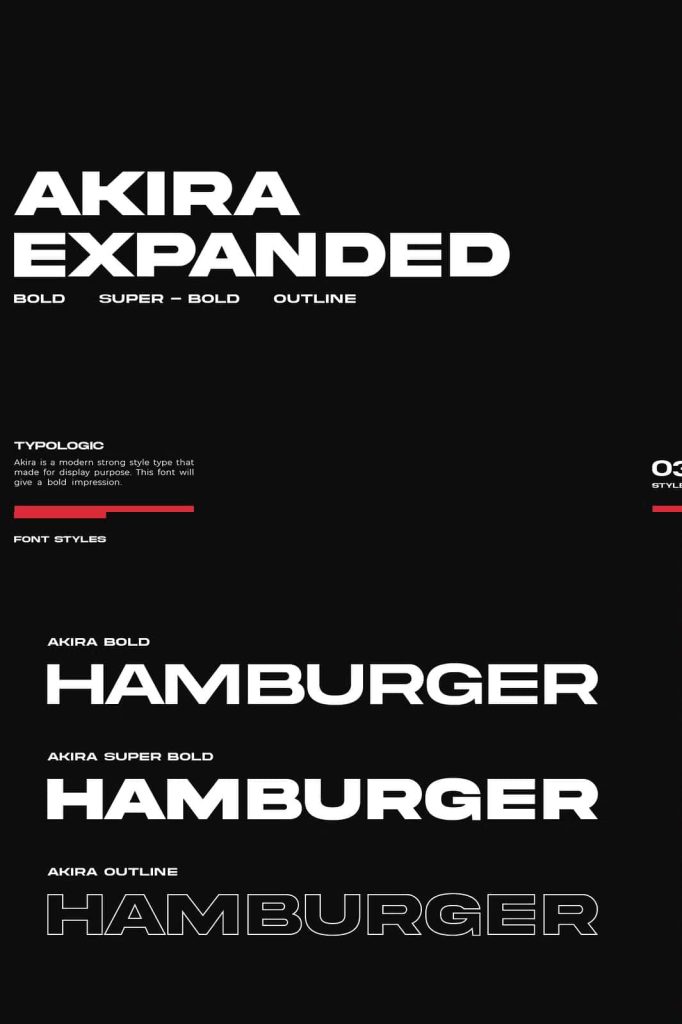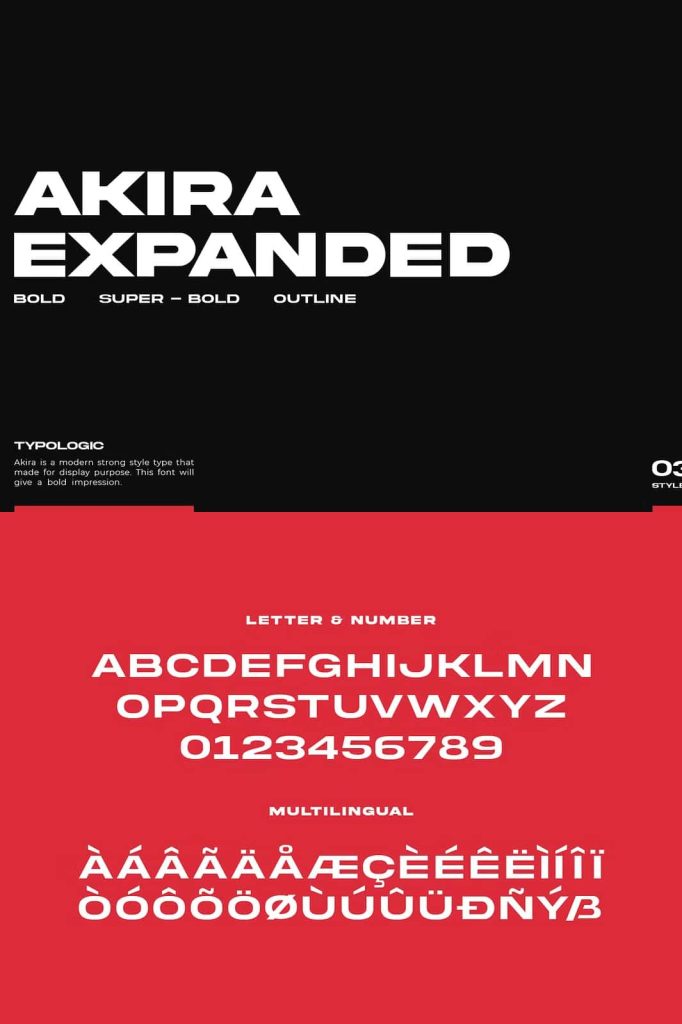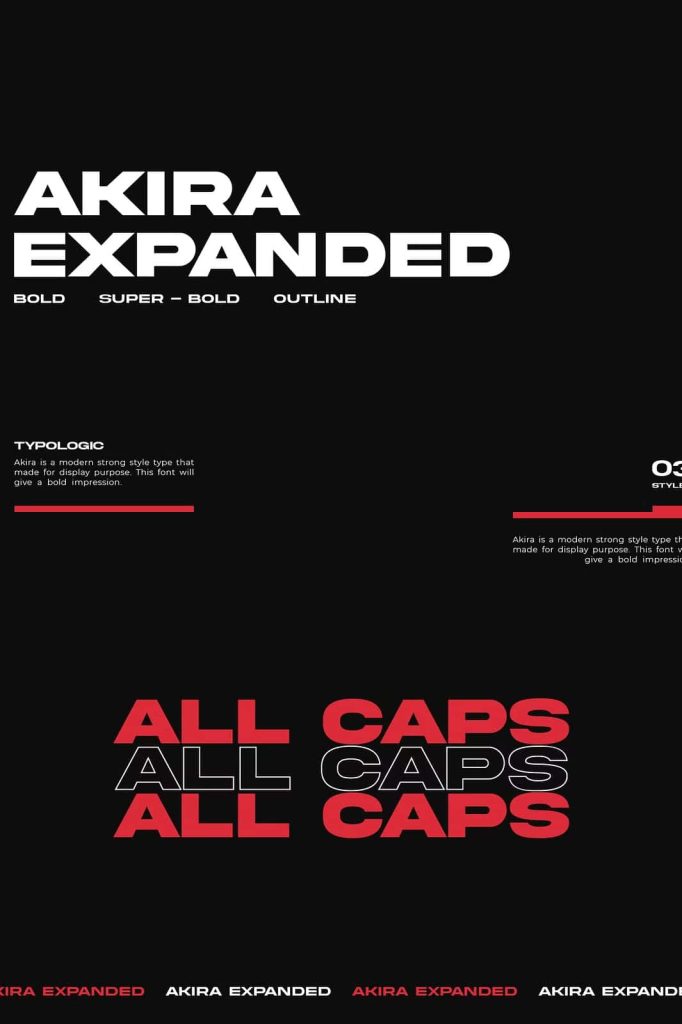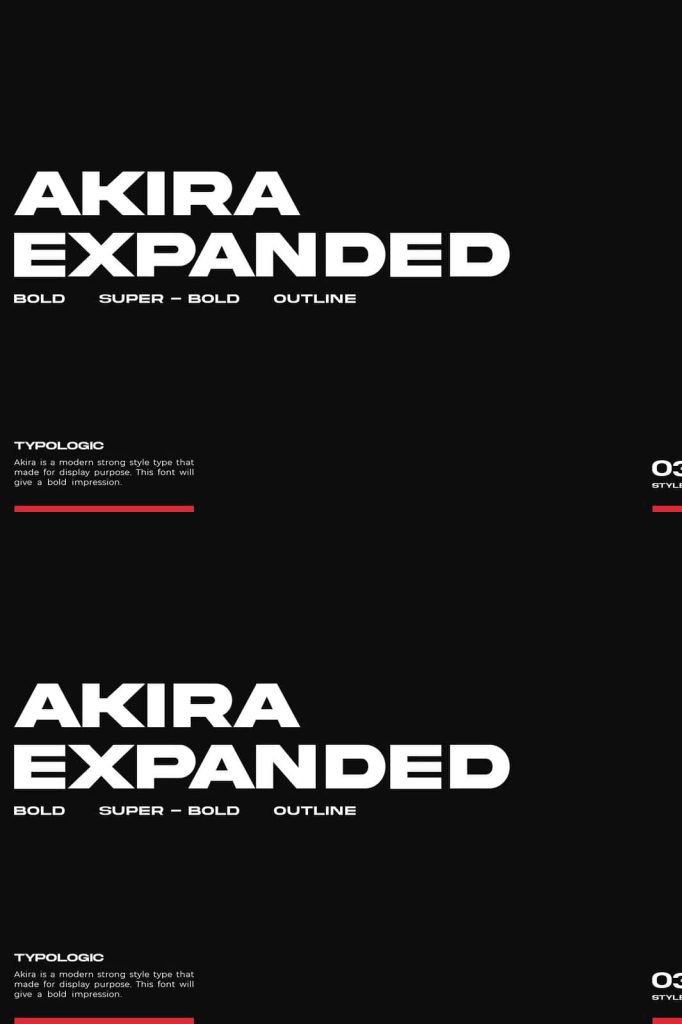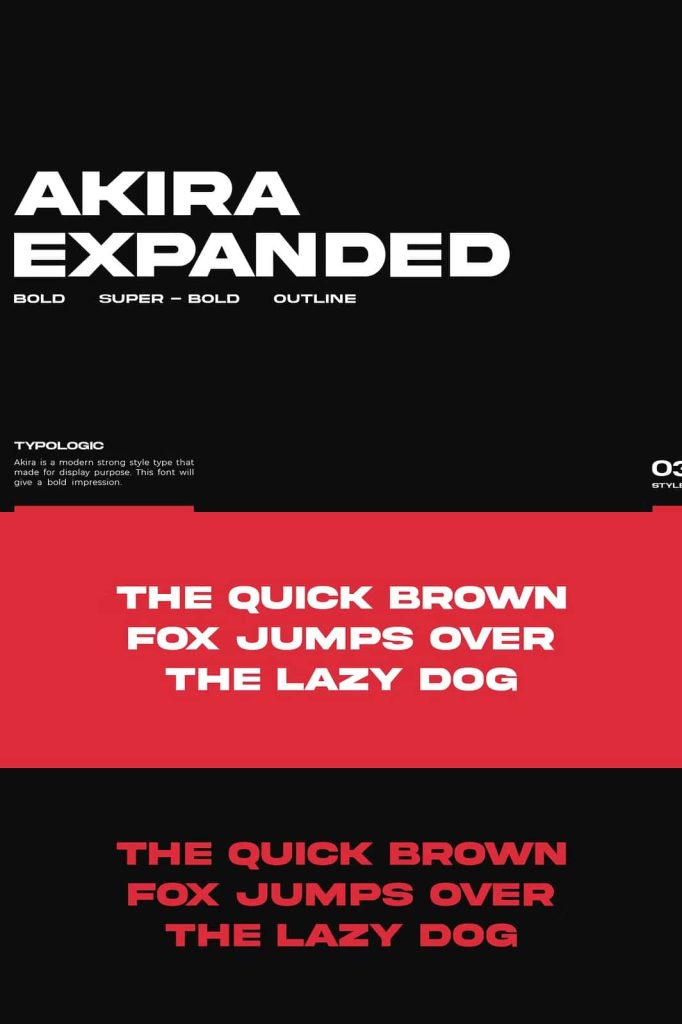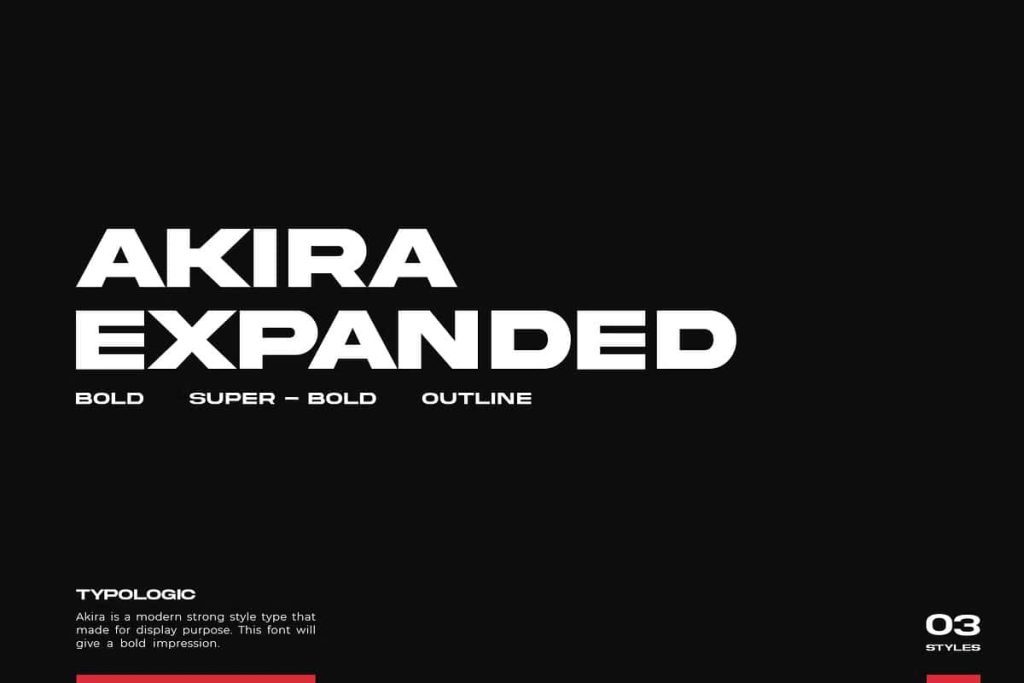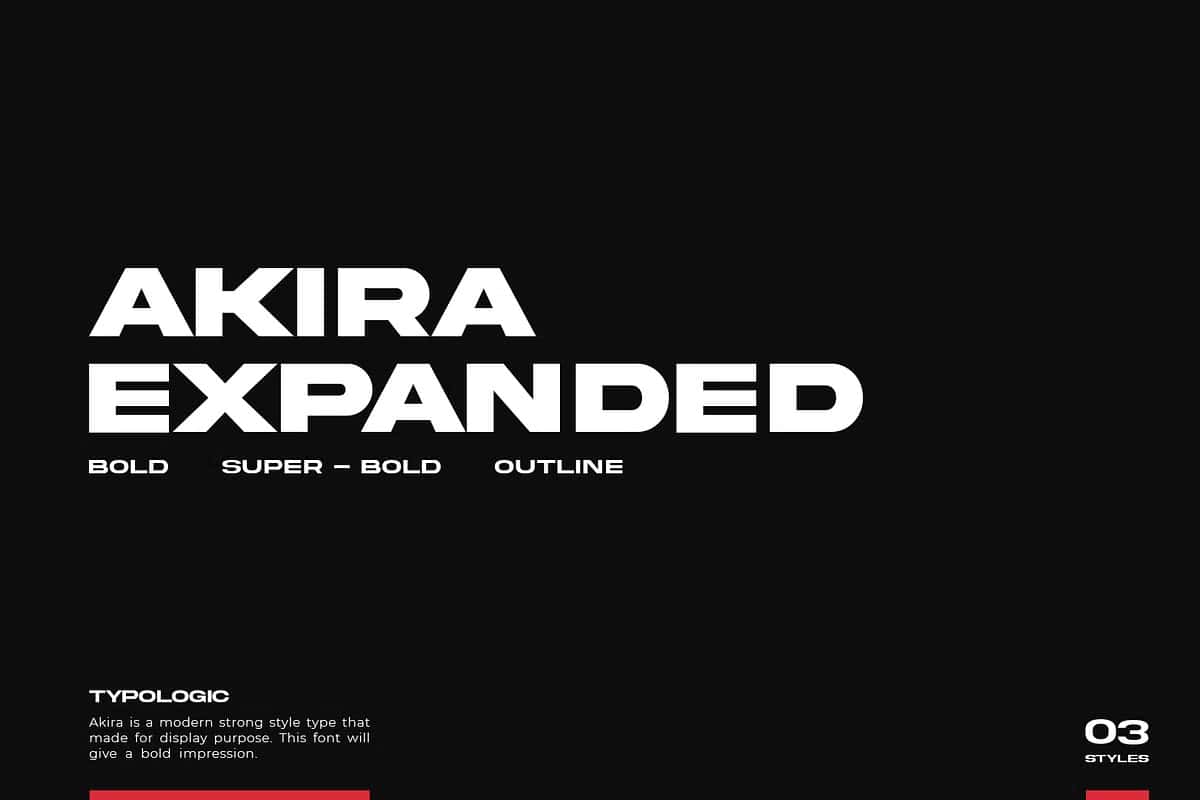
Akira Expanded Font: Bold, Modern Typography for Powerful Design
Akira Expanded Font is a contemporary, bold typeface that brings strength, clarity, and modern sophistication to your creative projects. Designed to make a strong visual impact, this font works perfectly for headlines, headers, main text, websites, editorial layouts, and graphic design projects where visibility and presence are essential. With its expanded letterforms and confident style, Akira Expanded ensures that your design communicates authority, energy, and professionalism.
The bold and modern structure of Akira Expanded gives designers the ability to create striking compositions that capture attention immediately. Whether you are working on a website, a corporate branding project, a poster, or a social media graphic, Akira Expanded delivers a clean yet powerful typographic presence that elevates any layout. Its wide proportions and strong geometric shapes provide balance and readability, making it both versatile and highly effective in a variety of design contexts.
Modern Design Meets Bold Visual Impact
Akira Expanded Font was crafted to bring a contemporary edge to any design. Its clean lines, modern geometric shapes, and expanded letter spacing give it a distinctive look that stands out in digital and print projects alike. The font’s bold appearance makes it ideal for use in headers, banners, and promotional graphics, where first impressions are critical. It communicates strength and professionalism, allowing designers to convey messages with confidence and clarity.
This font is particularly effective for website and layout design. The strong presence of Akira Expanded ensures that headlines are immediately readable and visually appealing, while the expanded forms create a sense of openness and sophistication. Its versatility allows it to pair beautifully with body text fonts, sans or serif, creating balanced and aesthetically pleasing compositions.
Perfect for Websites, Layouts, and Creative Projects
Whether designing for digital or print, Akira Expanded adapts effortlessly to a wide range of applications. Its boldness makes it ideal for projects that demand attention, including:
- Website Headers: Make navigation menus and hero sections visually impactful.
- Editorial Layouts: Enhance magazines, brochures, and publications with modern elegance.
- Posters and Advertising: Grab attention and convey messages effectively with strong, readable text.
- Branding and Logos: Give brand identities a contemporary and confident typographic voice.
- Social Media Graphics: Stand out with bold, modern lettering optimized for digital screens.
By using Akira Expanded in these applications, designers can create projects that are both functional and visually striking. Its modern personality ensures that your designs feel current, professional, and appealing to diverse audiences.
Design Features of Akira Expanded Font
Akira Expanded Font is built with precision and attention to detail. Its expanded letterforms, geometric structure, and bold strokes are designed to maintain readability while offering a powerful visual presence. Key features include:
- Bold and Strong Style: Ensures maximum visibility for headlines and primary text.
- Expanded Letterforms: Adds openness, sophistication, and modern aesthetic to your typography.
- Versatile Applications: Perfect for web, print, branding, editorial, and advertising projects.
- Modern Geometric Design: Combines clarity with visual appeal for professional layouts.
- High Readability: Maintains legibility even in large-scale or condensed formats.
These features make Akira Expanded a powerful tool for designers who want to create a bold and modern visual identity. The font delivers impact without sacrificing readability, giving your projects a professional edge.
Why Choose Akira Expanded for Your Design Projects
Akira Expanded Font is the ideal choice for designers seeking a modern and bold typeface that elevates their work. Its expanded style and strong presence ensure that every project communicates clearly and confidently. Whether designing a corporate website, a creative portfolio, or a marketing campaign, Akira Expanded provides a visually commanding foundation for your design.
The font’s versatility allows for seamless integration with other typefaces, making it suitable for complex layout systems while maintaining visual harmony. Designers can use Akira Expanded for main titles, headings, and display text, pairing it with complementary body fonts to create a balanced and professional design. Its modern aesthetic and clean geometric lines make it suitable for both digital and print projects, from websites and mobile apps to posters, brochures, and social media campaigns.
Applications and Creative Potential
With Akira Expanded, designers have the freedom to explore bold and impactful typographic solutions. The font excels in projects where clarity, strength, and contemporary style are key. Some ideal applications include:
- Website Design: Use in headers, hero sections, and navigation elements for modern web layouts.
- Marketing Materials: Posters, flyers, and social campaigns benefit from the bold, readable style.
- Branding: Logos, corporate identity, and promotional materials gain a strong typographic voice.
- Editorial Work: Magazines, brochures, and publications are enhanced by the modern and professional feel.
- Print Design: Achieve visual impact in banners, packaging, and signage with bold expanded text.
The possibilities are extensive, and the bold, modern personality of Akira Expanded ensures your designs remain visually engaging across multiple platforms and mediums.
Make Your Designs Stand Out with Akira Expanded
Akira Expanded Font delivers a commanding presence that elevates every design it touches. Its modern, bold, and expanded letterforms provide clarity, style, and visual energy. Designers can use it to create compelling layouts, memorable branding, and striking digital graphics that capture attention and communicate effectively. With Akira Expanded, every project gains the strength and sophistication needed to make a lasting impression.
Embrace the bold modernity of Akira Expanded for your next creative project. Its combination of readability, contemporary design, and visual impact ensures that your work stands out and leaves a powerful impression on your audience.